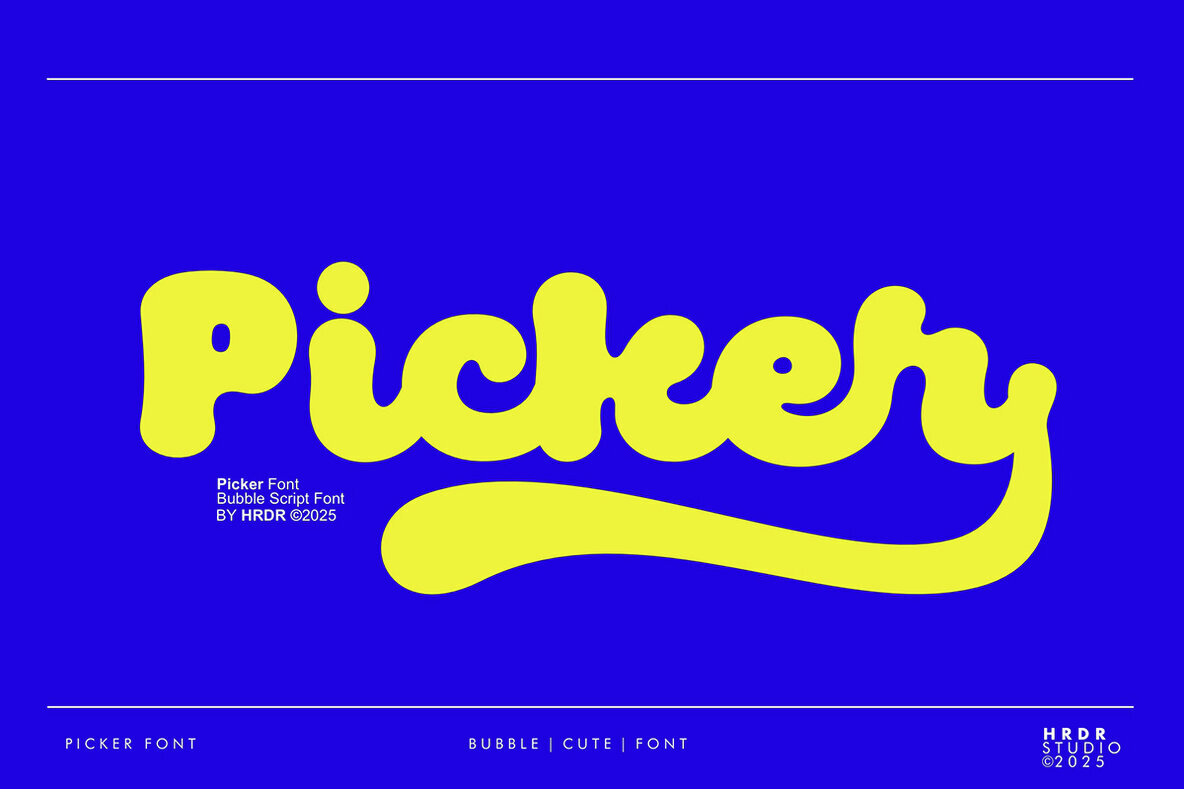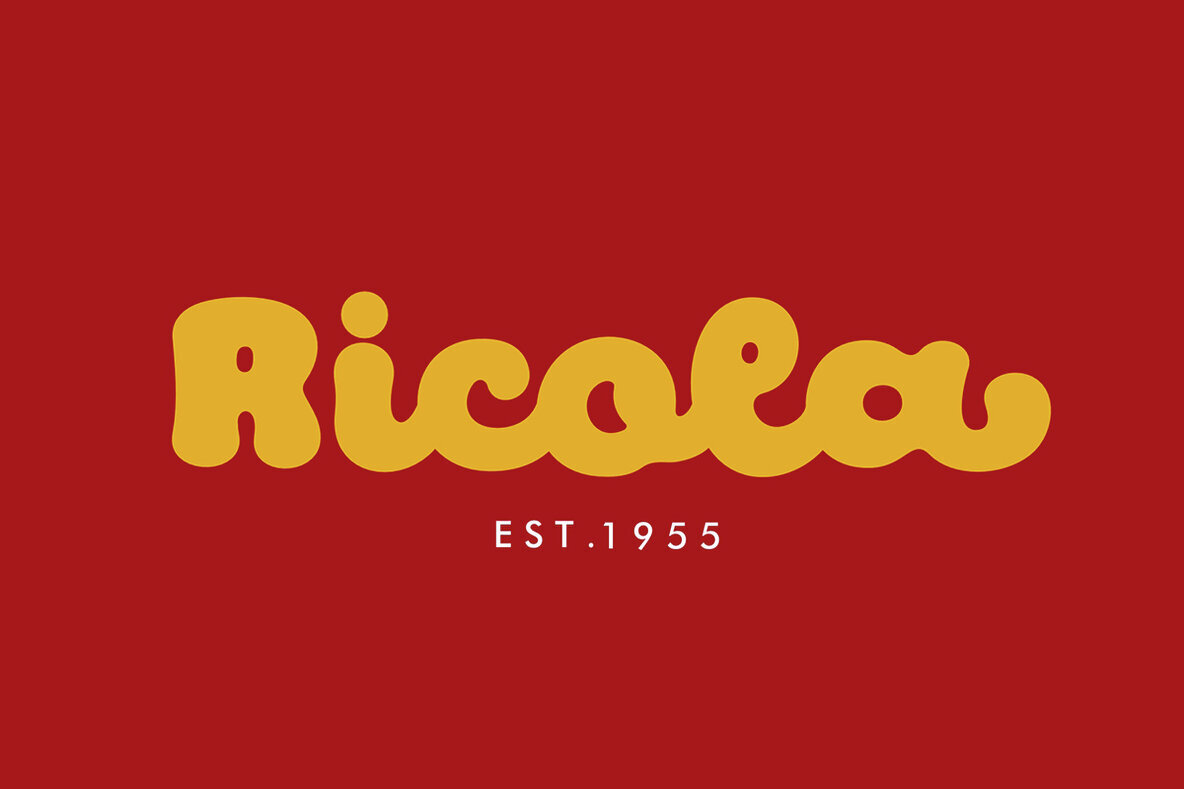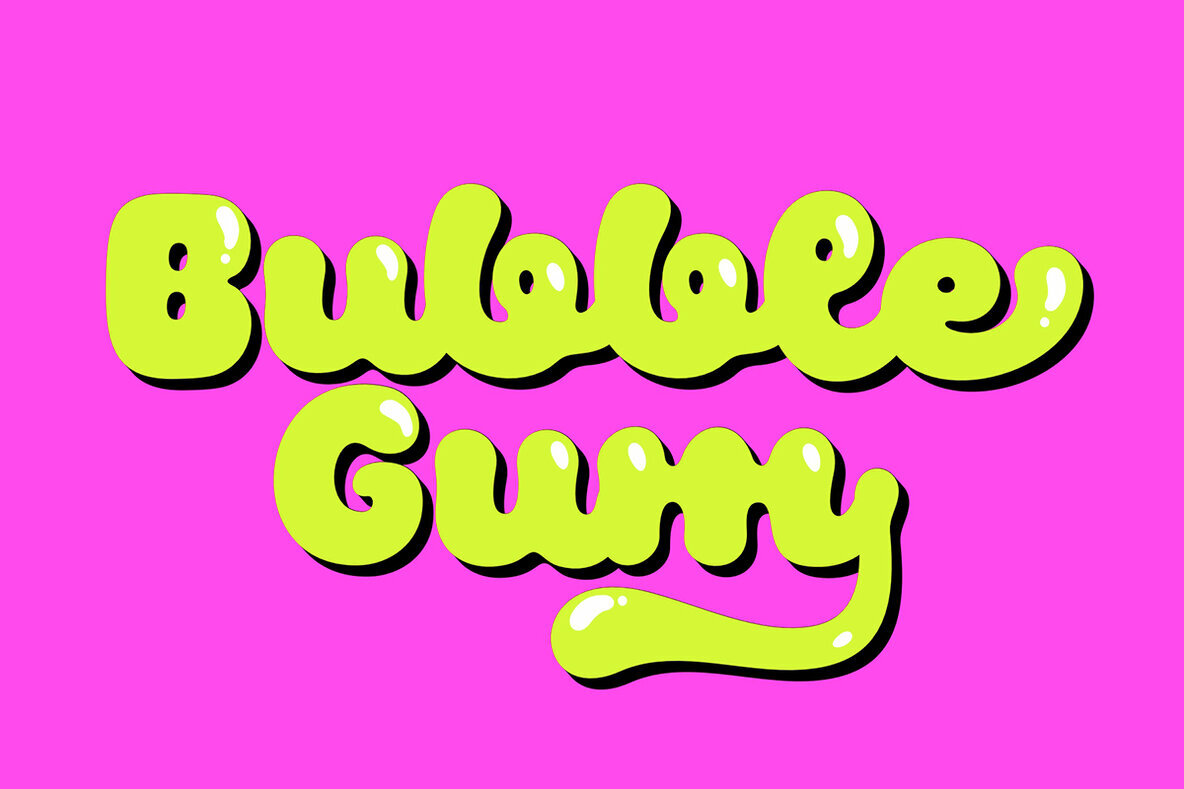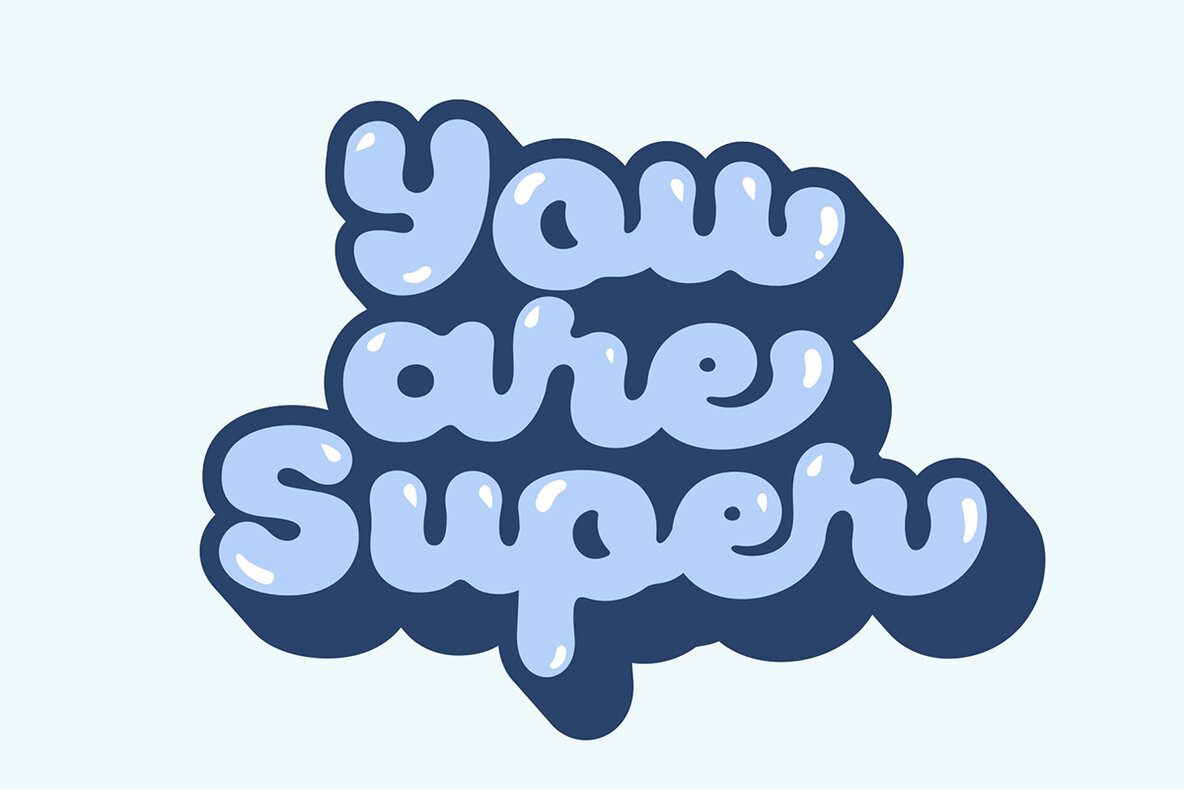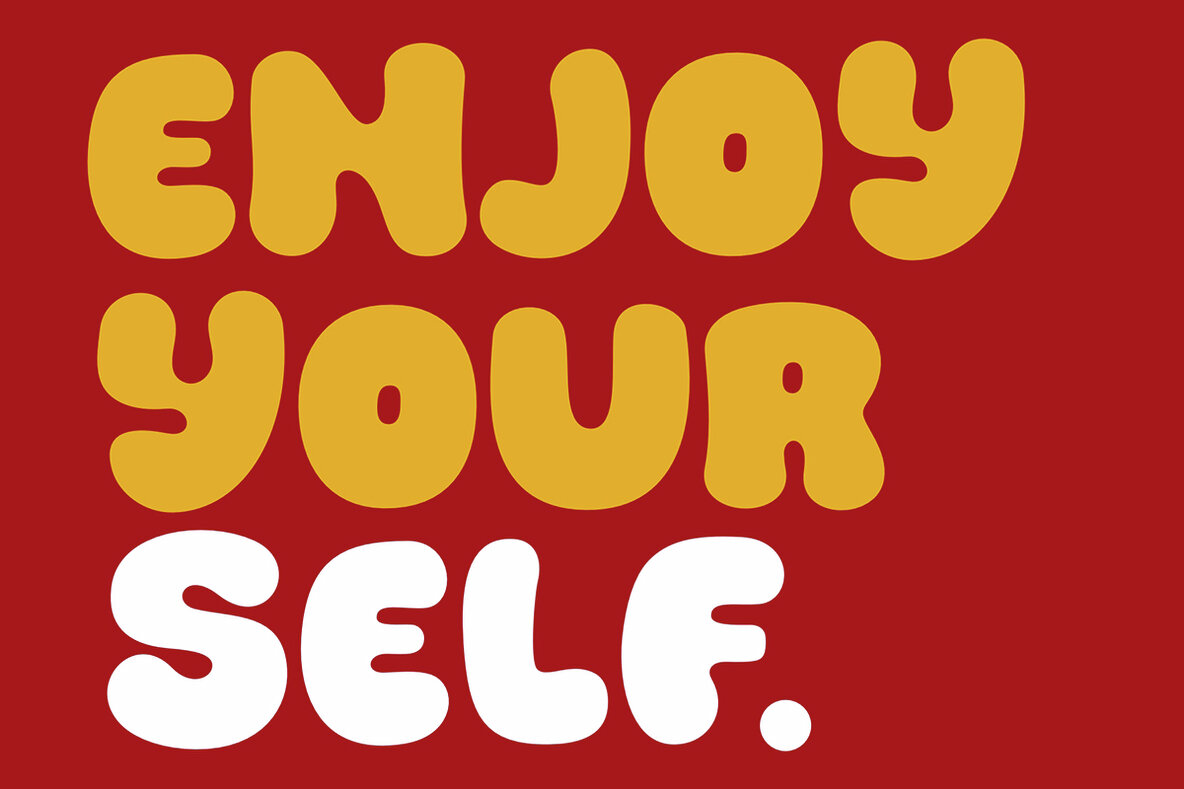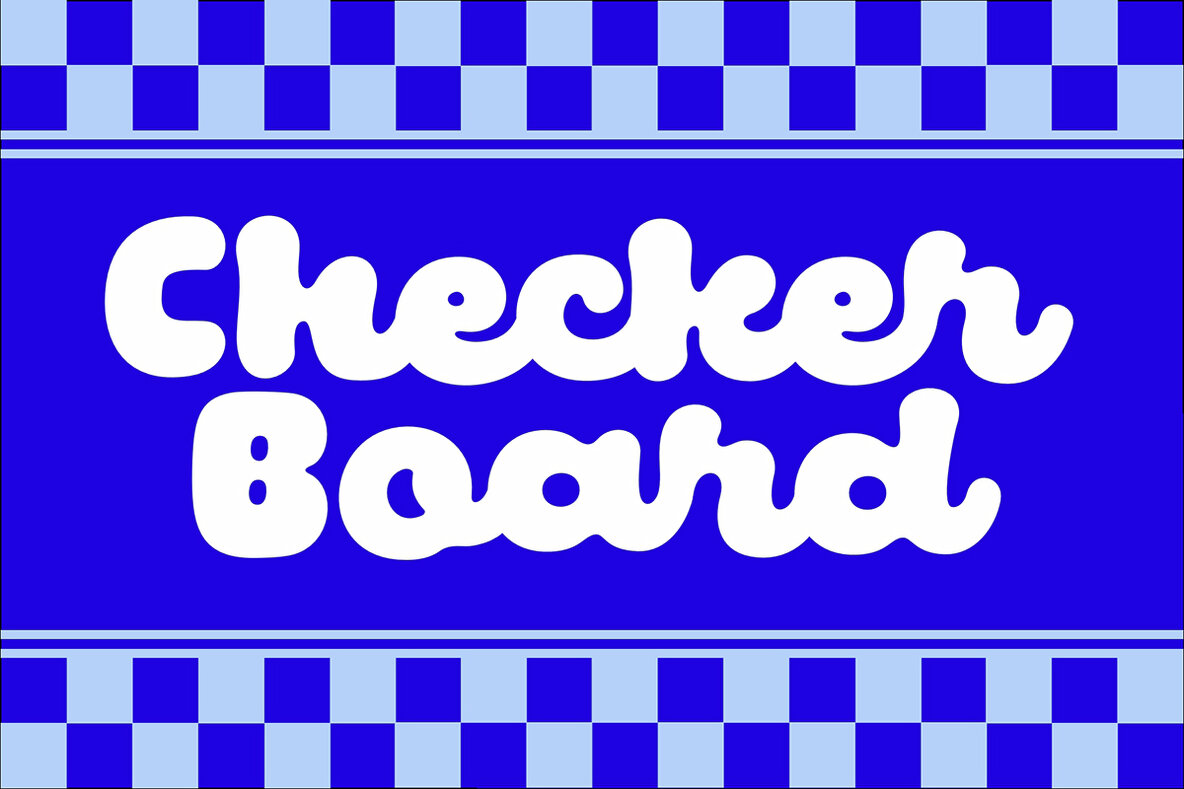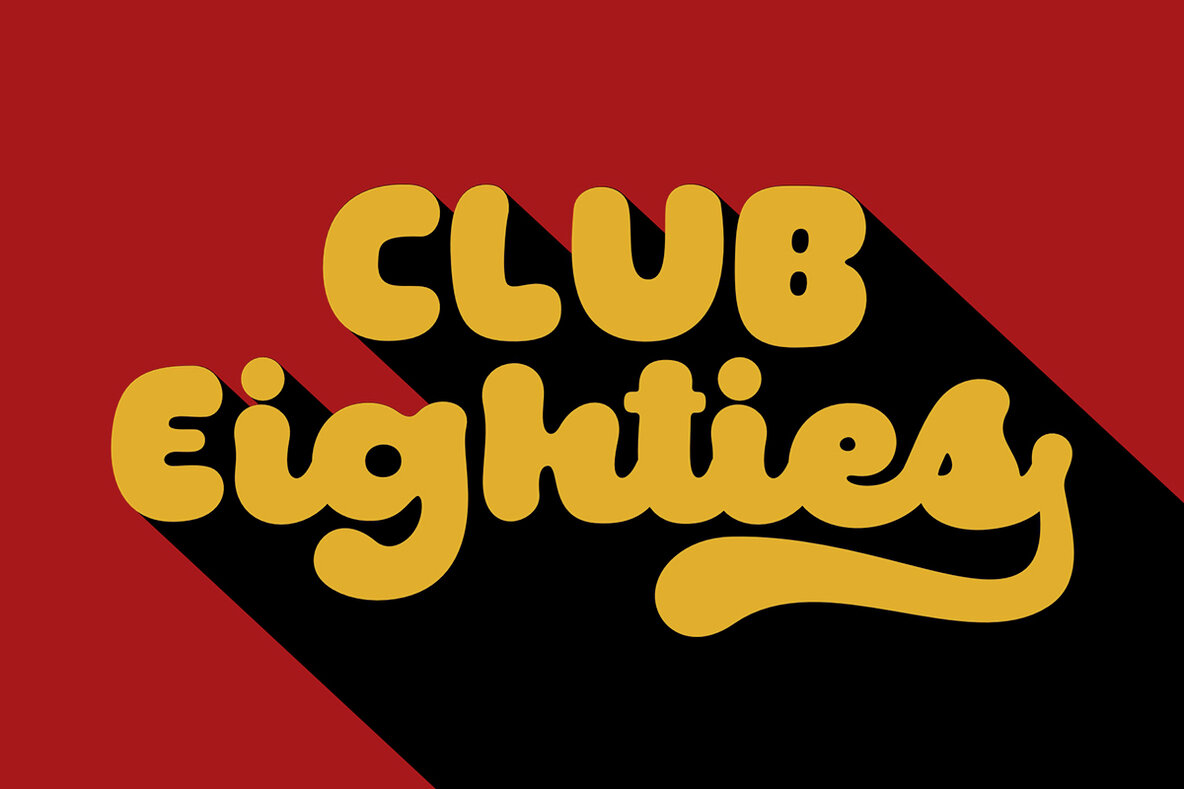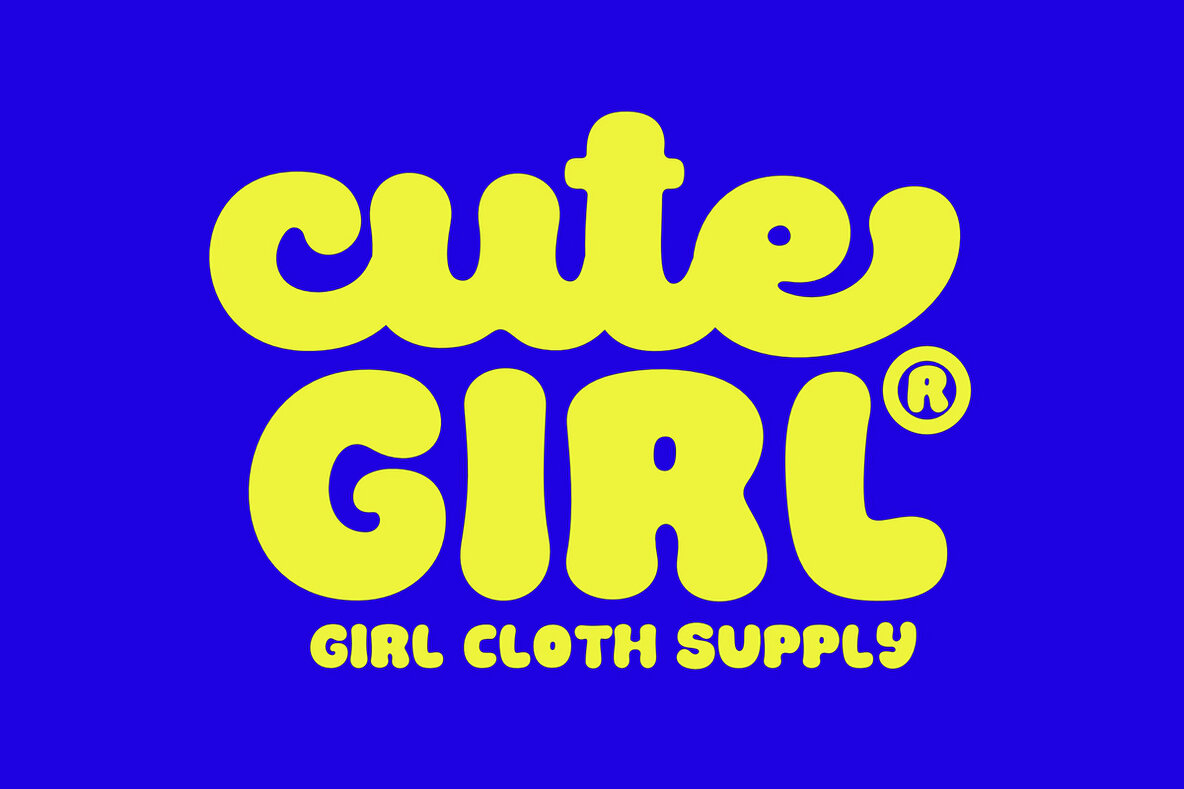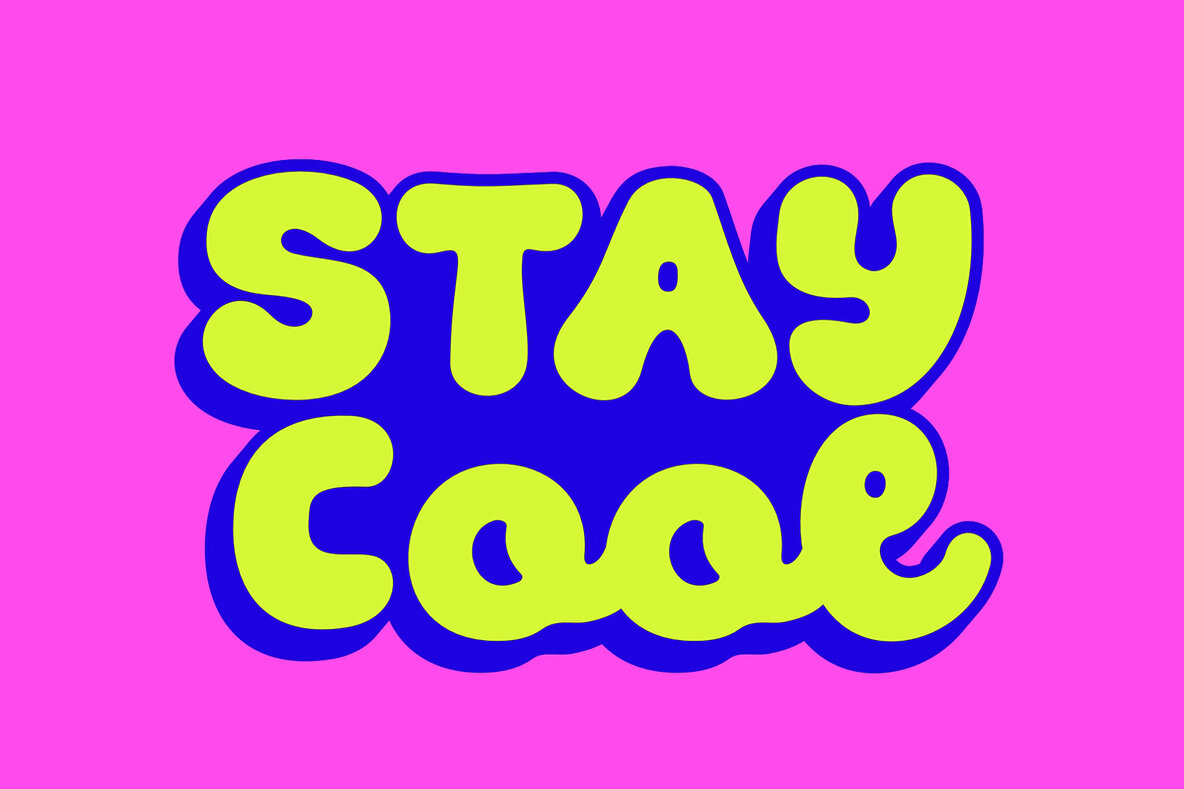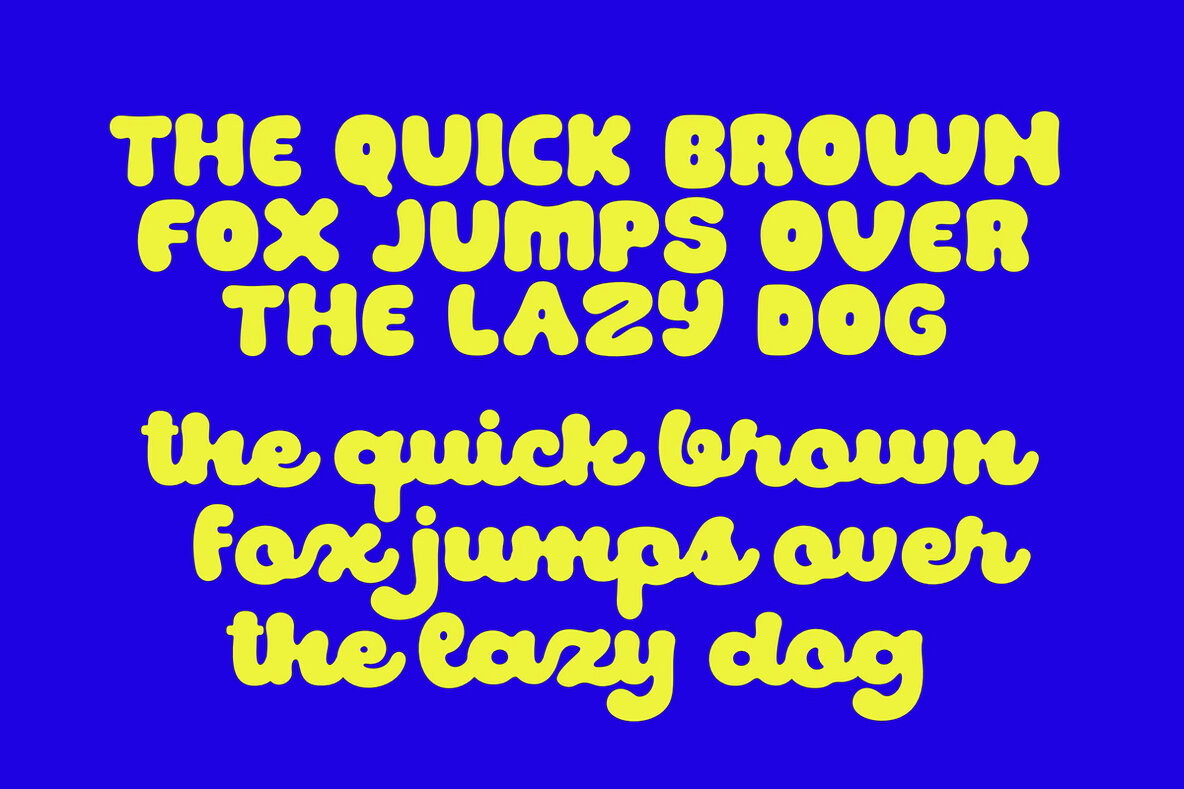
Picker Font
Picker Regular
Picker is a bold, curvy script font that brings together retro flair and elegant character. Its bubble-like forms and expressive curves create a standout presence, making it ideal for headlines, logos, and branding that demand attention. The handwritten quality lends a personable touch, perfectly suited for design projects that seek warmth and individuality.Picker Script Font – Retro Bold Charm
Whether designing playful posters or distinctive brand identities, Picker delivers a memorable, energetic vibe that resonates with creative professionals looking for something out of the ordinary.Font Features